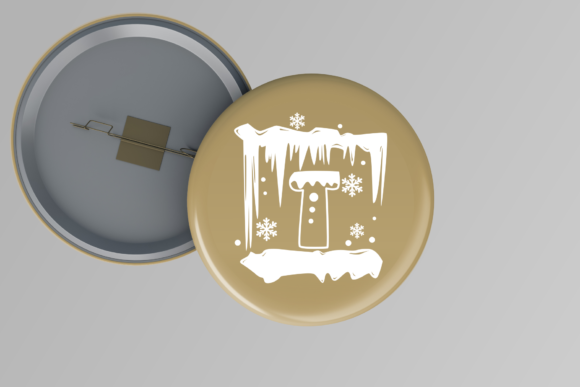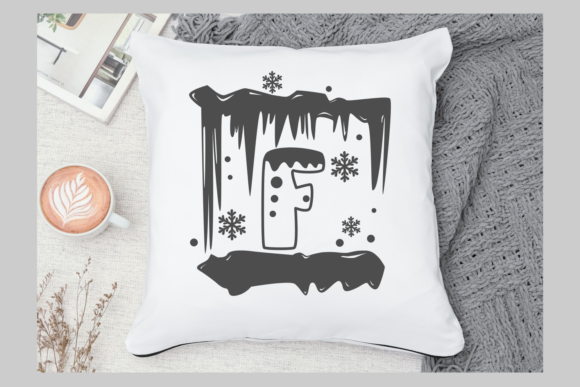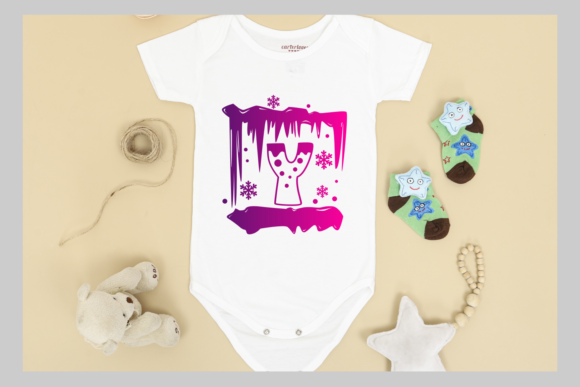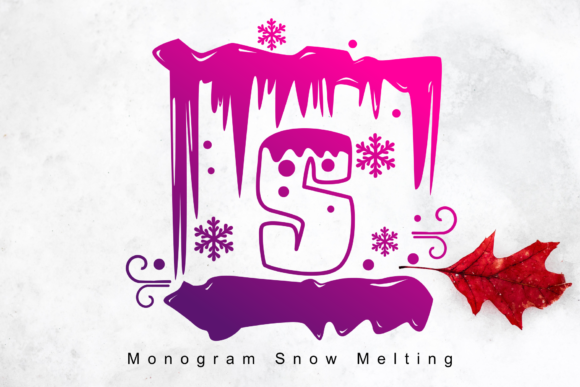
Introduction to Monogram Snow Melting Font
Monogram Snow Melting is a highly detailed and sweet decorative font.
Add this quirky-looking font to each of your children projects or favorite design ideas, and you will be astounded by the outcome .
Key Features of Monogram Snow Melting Font
Why Choose Monogram Snow Melting Font?